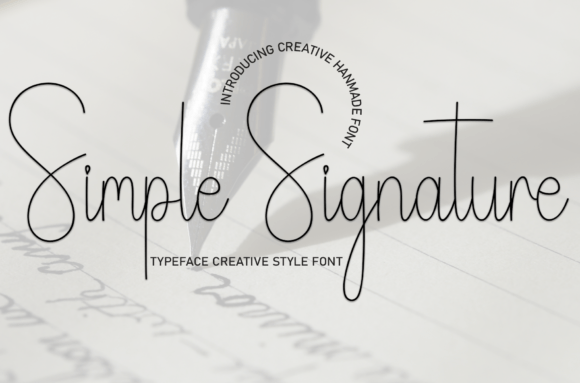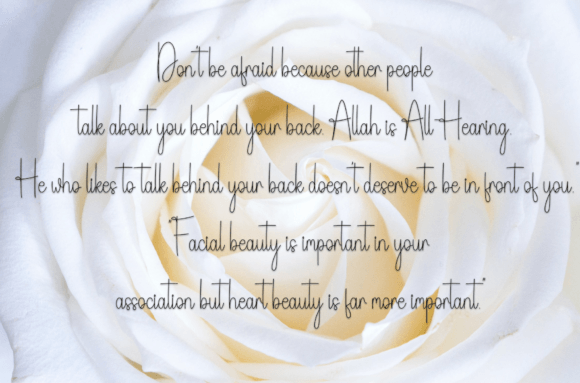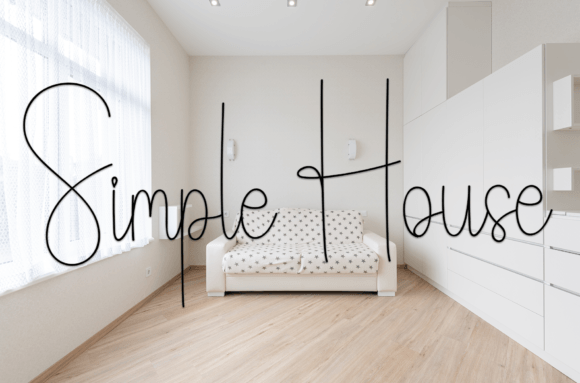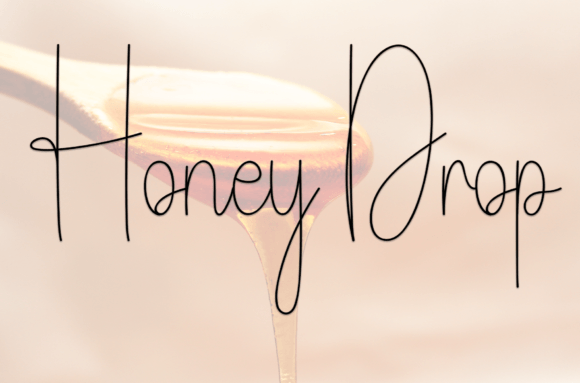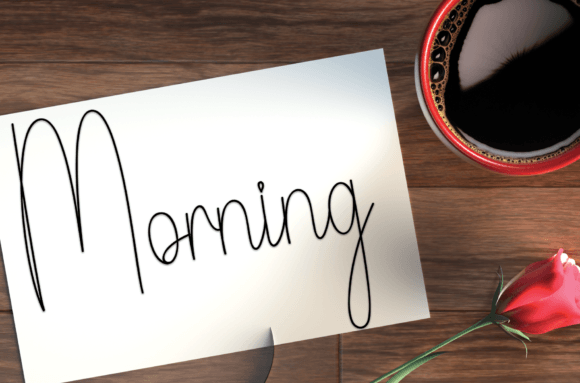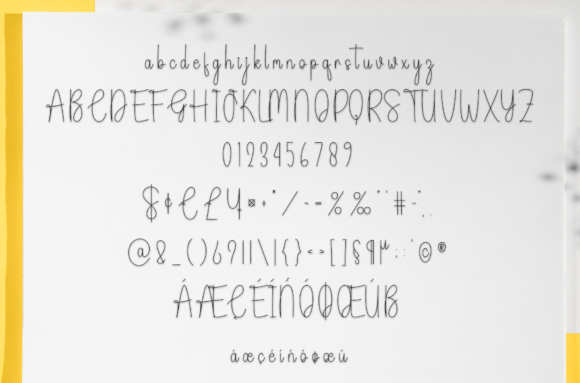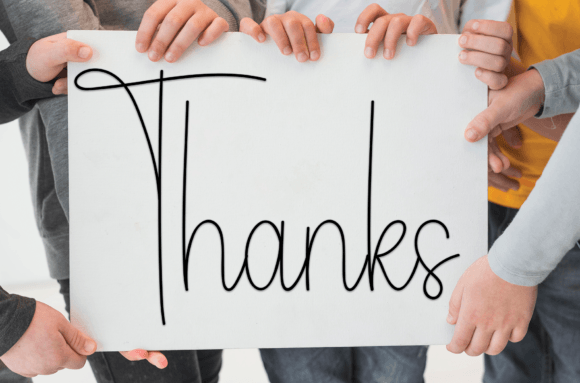
Simple Signature
About Simple Signature
Simple Signature is a sweet and friendly handwritten font. Cute and fun, this font is ideal for writing wedding invitations, cards, or any other design that might need a fun touch!